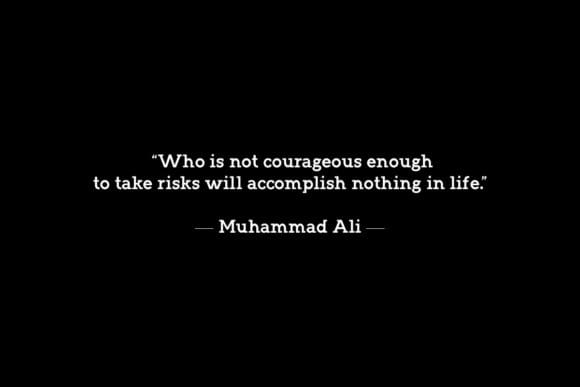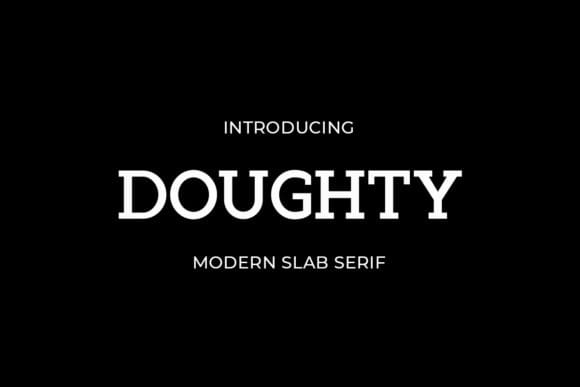
DOUGHTY SLAB FONT
Doughty slab Font is a minimal and clean slab serif font. It can easily be matched to an incredibly large set of projects, so add it to your creative ideas and notice how it makes them stand out!